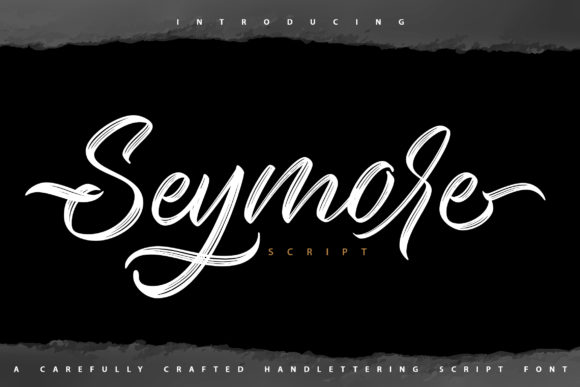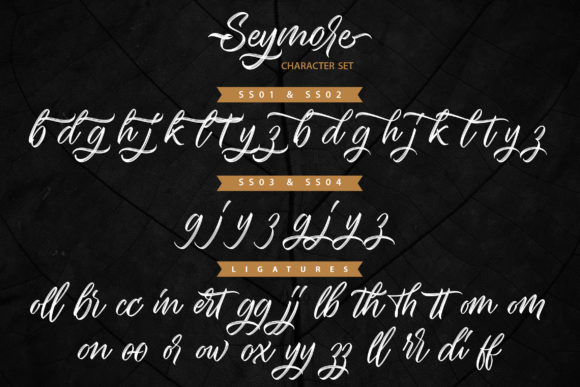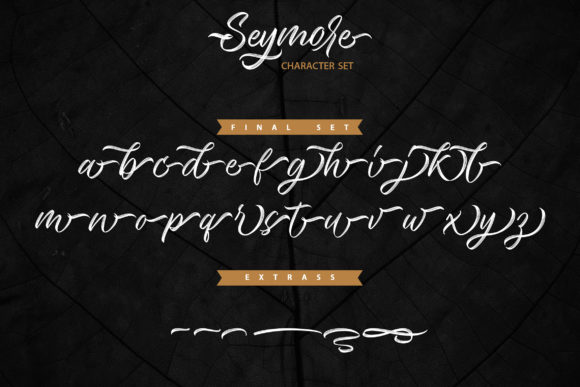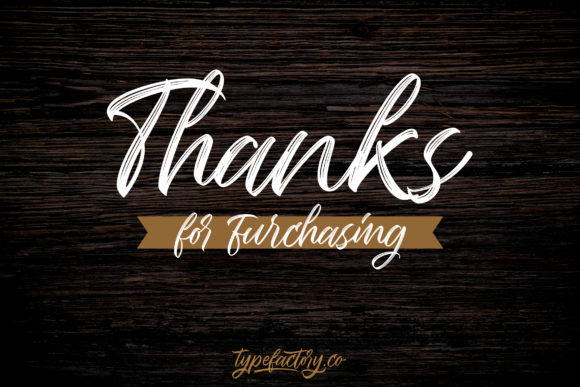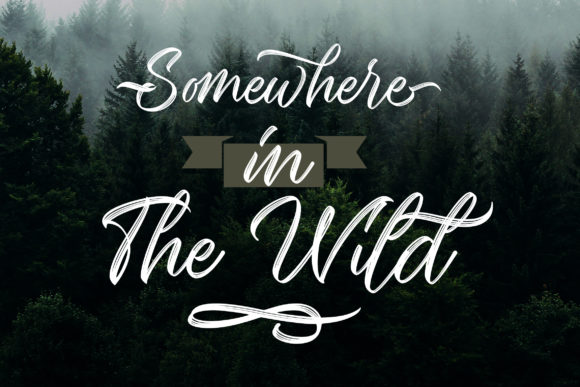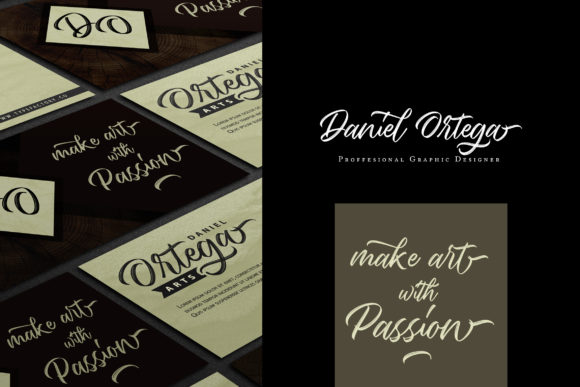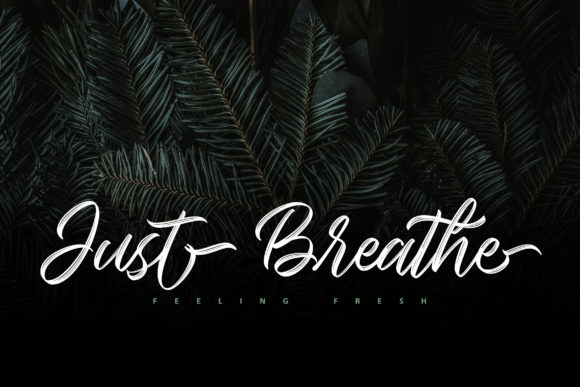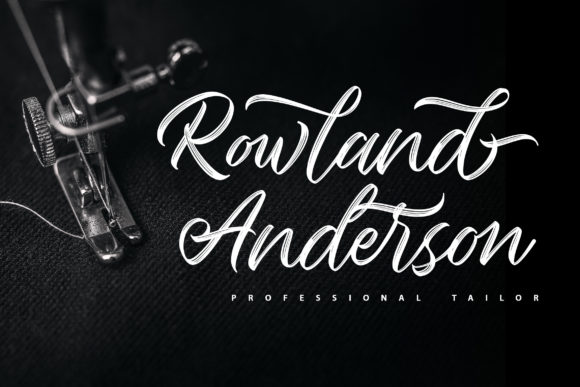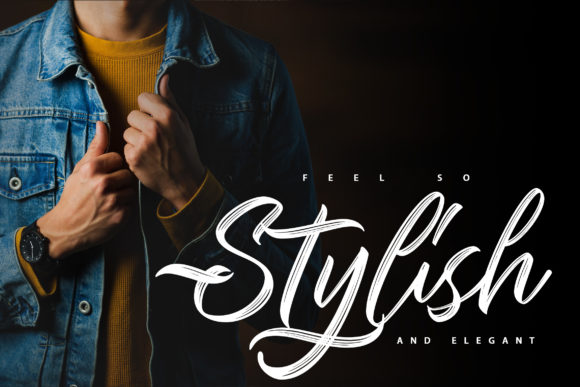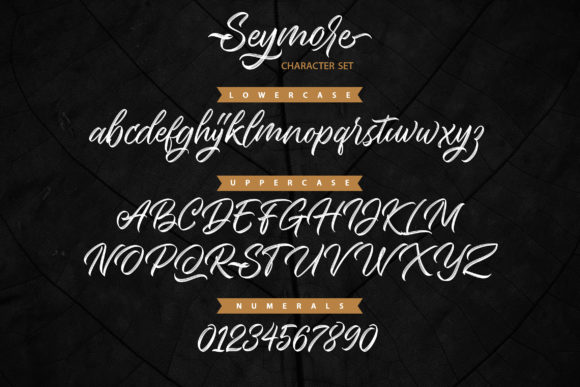
Seymore Font
About Seymore Font
Introducing Seymore: The Brushed and Trendy Handwritten Font
Discover the trendiness and uniqueness of Seymore, a font that combines the charm of brushed handwriting with a touch of modern flair. With its sweet and distinctive appeal, Seymore enhances each of your designs, adding a touch of sweetness and individuality to all your creative projects. Embrace the trendy allure of Seymore as you bring a fresh and captivating vibe to your work.
Seymore’s brushed and trendy appeal brings a sense of artistry and contemporary elegance to your designs. Its handwritten letterforms flow with a seamless beauty, making your text stand out with a touch of modernity and style.
As a font that adds sweetness and uniqueness to each design, Seymore becomes the perfect choice for enhancing your projects. Its trendiness ensures that your work resonates with a fresh and captivating touch.
Embrace the beauty of Seymore as you embark on your creative journey. Let it be the font that elevates your work, creating a sense of modern allure and individuality in every project.
As you explore the possibilities of Seymore, you’ll find it to be a font that enhances your designs with ease. Its brushed and trendy handwritten beauty transforms your work, ensuring that your creations leave a lasting impression.
So, let Seymore be the font that adds a sweet and unique touch to your designs. Embrace its trendy charm, and watch as your projects come to life with a fresh and captivating vibe. With Seymore as your go-to font, your designs will resonate with modernity and creativity, captivating your audience and leaving a lasting impression. Embrace the uniqueness of Seymore and create designs that are truly captivating and unforgettable!